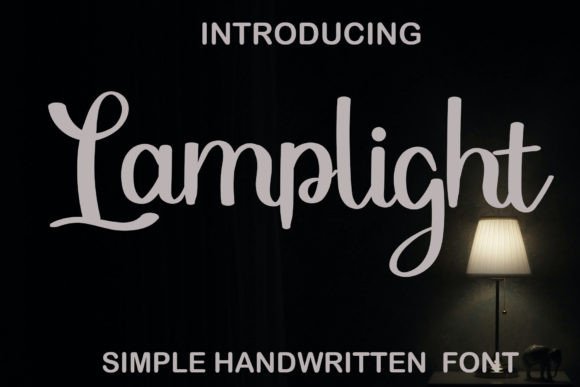
Lamplight Font
Introducing Lamplight Font - A Stroke of Elegance for Your Creative Endeavors
In the realm of typography, where letters dance and stories unfold, Lamplight Font emerges as a radiant beacon of artistry. Its delicate strokes, elegant curves, and flowing rhythm bring a touch of enchantment to every word it graces. Inspired by the flickering warmth of candlelight, Lamplight Font possesses a timeless charm that transcends trends and seasons.
Unleash the Beauty of Handwritten Elegance:
Lamplight Font captivates with its meticulously crafted characters, each one a testament to the art of penmanship. The smooth transitions and graceful flourishes evoke a sense of intimacy, as if each word were handwritten with care and devotion. Whether you're crafting heartfelt invitations, designing captivating logos, or adorning your social media posts with a touch of elegance, Lamplight Font adds a personal touch that resonates with your audience.
A Symphony of Versatility:
Lamplight Font adapts effortlessly to a myriad of creative visions. Its inherent versatility allows it to harmonize with diverse design styles, from classic and timeless to modern and eclectic. Whether you're creating a vintage-inspired poster, designing a whimsical wedding invitation, or crafting a sleek and minimalist logo, Lamplight Font seamlessly blends in, enhancing your designs with its understated charm.
Illuminate Your Ideas with Lamplight Font:
Lamplight Font possesses an innate ability to transform ordinary words into radiant expressions of your creativity. Its delicate strokes add a touch of magic to your designs, capturing the attention of your audience and leaving a lasting impression. Whether you're a seasoned designer seeking a font that elevates your work or a creative enthusiast seeking a font that breathes life into your projects, Lamplight Font is the perfect choice.
Immerse Yourself in a World of Timeless Beauty:
With Lamplight Font, you'll embark on a creative journey where elegance and sophistication reign supreme. Its timeless beauty transcends the boundaries of time, ensuring that your designs remain captivating and relevant for years to come. Let Lamplight Font be your faithful companion in your creative endeavors, adding a touch of magic to every project you undertake.